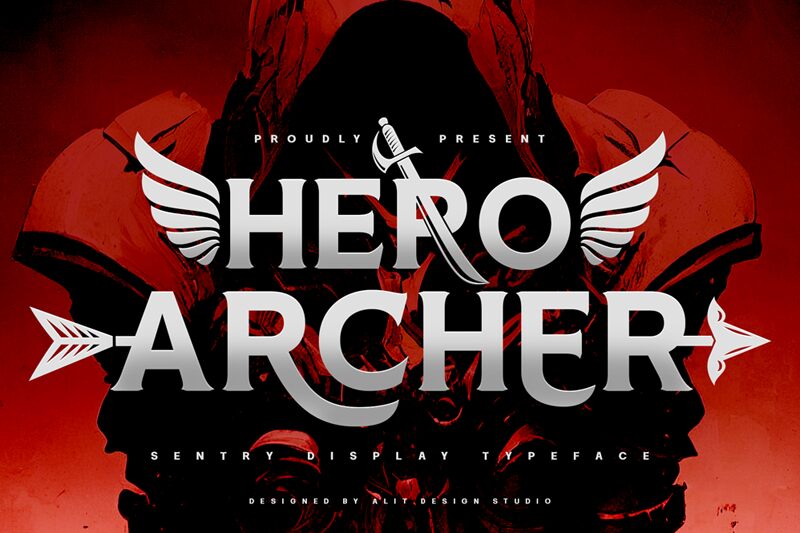
Presenting Hero Archer, a captivating serif font designed by Alit Design. Exuding a bold and commanding presence, this typeface commands attention with its sharp edges and striking letterforms. The robust, assertive nature of Hero Archer evokes a sense of strength and determination, making it a standout choice for impactful branding, editorial designs, and eye-catching headlines. Its unwavering presence instantly elevates any project, delivering a powerful visual statement that demands to be noticed.
Versatile and adaptable, Hero Archer's versatility extends across a wide range of applications. From imposing book covers to authoritative signage, this font lends an air of confidence and professionalism. Its bold, distinct personality makes it an excellent selection for logos, posters, and other high-impact design elements that require a strong, memorable presence. Hero Archer's versatility ensures it can seamlessly integrate into a variety of creative endeavors, elevating the overall aesthetic and leaving a lasting impression.